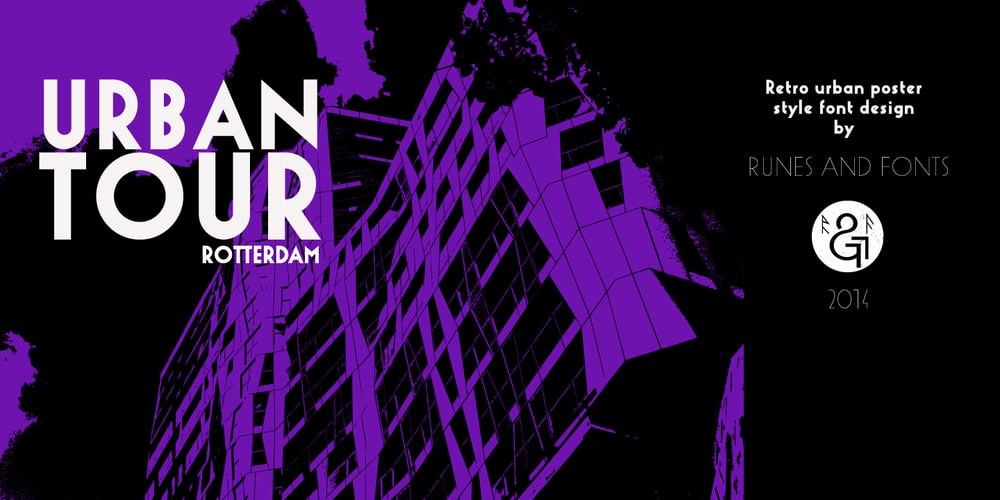
Urban Tour
Urban Tour font
Urban Tour Font Family was designed by Roland Hüse and published by Roland Hüse Design. Urban Tour contains 6 styles and family package options. -This font has been basically designed for poster display in black weight and big size (mostly for capital letters). The rest of the family is a derivative work of it. I can’t guarantee if it works well on small size print. -Future updates may follow in the near future or on request. Please feel free to contact me via rolandhuse@aol.com about the following: -This family does not contain all the language extensions, but I am willing to create any extensions (including Cyrillic) on request; – Discovering kerning problems while using; Or any other question.